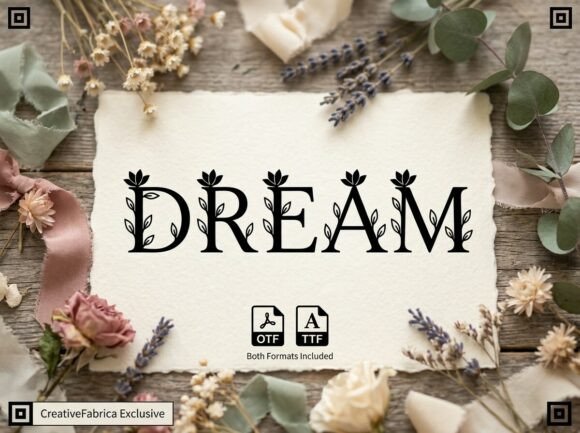
Drift into Elegance with Dream Font: A Timeless Choice for Creative Projects
In the world of typography, few fonts capture the essence of elegance and sophistication as beautifully as Dream Font. This delicate display serif font is designed to evoke a sense of refinement and growth, making it the perfect choice for creative projects that demand a touch of luxury. With its classic serif letterforms, rhythmic hand-drawn leafy vines, and symmetrical floral buds, Dream Font is a masterpiece of typographic design.
The Unique Features of Dream Font
Dream Font boasts a range of distinctive features that set it apart from other fonts. Its classic serif letterforms provide a sense of tradition and timelessness, while the hand-drawn leafy vines add a touch of whimsy and romance. The symmetrical floral buds that cap each letterform add a delicate, ornate touch that elevates the font to new heights of elegance. The balanced structural weight of the font ensures that it remains legible and refined, even at larger sizes.
The Inspiration Behind Dream Font
The inspiration behind Dream Font is rooted in the concept of growth and elegance. The font’s creator aimed to craft a typeface that would evoke a sense of refinement and sophistication, while also conveying a sense of natural, effortless beauty. The result is a font that feels both luxurious and approachable, making it perfect for a wide range of creative projects.
Ideal Uses for Dream Font
Dream Font is a versatile typeface that can be used in a variety of creative projects. Some of the ideal uses for this font include:
- Independent wedding stationery branding: Dream Font’s elegant, refined aesthetic makes it a perfect choice for wedding stationery, including invitations, save-the-dates, and thank-you cards.
- Boutique lifestyle logos: The font’s luxurious, high-end feel makes it well-suited for boutique lifestyle brands, including fashion, beauty, and home decor.
- Artisanal wellness packaging: Dream Font’s natural, effortless beauty makes it a great choice for artisanal wellness brands, including skincare, herbalism, and holistic health.
- High-impact social media headers: The font’s bold, eye-catching aesthetic makes it perfect for social media headers, where it can help to grab attention and establish a brand’s identity.
Why Choose Dream Font?
There are many reasons why Dream Font stands out from the crowd. Here are just a few:
- Unique and distinctive: Dream Font’s combination of classic serif letterforms and hand-drawn leafy vines makes it a truly unique and distinctive typeface.
- Elegant and refined: The font’s balanced structural weight and luxurious aesthetic make it perfect for creative projects that demand a touch of sophistication.
- Versatile: Dream Font can be used in a wide range of creative projects, from wedding stationery to social media headers.
- Easy to read: Despite its elegant, refined aesthetic, Dream Font remains easy to read, even at smaller sizes.
Tips for Using Dream Font
To get the most out of Dream Font, here are a few tips to keep in mind:
- Use it sparingly: Dream Font’s elegant, refined aesthetic can be overwhelming if overused. Use it sparingly to create a sense of luxury and sophistication.
- Pair it with contrasting fonts: Dream Font pairs beautifully with contrasting fonts, such as bold sans serifs or elegant script fonts.
- Experiment with different sizes: Dream Font’s balanced structural weight makes it suitable for use at a range of sizes, from large headings to smaller body text.
In conclusion, Dream Font is a timeless and elegant typeface that is perfect for creative projects that demand a touch of luxury. With its unique features, versatile design, and easy-to-read aesthetic, it’s a great choice for designers and crafters looking to add a touch of sophistication to their work.